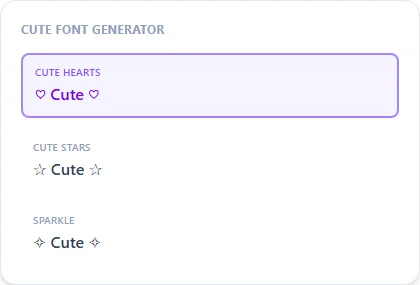
Cute fonts pair a soft-looking style (small caps, bubble letters, bold script) with light decoration around the text, like hearts, stars, and sparkles.
Type your text once to get both the styled text and the decorated wrapped versions, and mix and match to fit your bio's overall vibe.
Cute Font Generator style examples: Cute Hearts, Cute Stars, Sparkle, rendered on the word "Cute"
Letter style vs. symbol wrapper — they're two separate layers
'Cute' text is really two ingredients stacked together: a soft letter style underneath (Small Caps, Bubble, or Bold Script), and a symbol wrapper on top (Cute Hearts, Cute Stars, Cute Sparkle) that frames the whole phrase with decoration. You can use either layer alone or combine them. Generate the styled text first, then apply a wrapper to the result for the fullest cute effect.
Where cute fonts get used most
Instagram and TikTok bios are the biggest use case, followed by usernames and birthday or celebration captions. Because the hearts and stars are standard Unicode symbols rather than emoji, they render consistently across iPhone, Android, and desktop instead of showing a platform-specific emoji design.
Can I combine a font style with the heart/star decoration?
Yes, generate your text in a style like Bold Script or Small Caps first, then wrap the result with the Cute Hearts or Cute Stars option.
Do the heart and star symbols work on all devices?
They're standard Unicode symbols supported on virtually all modern phones and browsers.
What's the difference between Cute Hearts and Cute Sparkle?
Cute Hearts places a heart symbol around each word, Cute Sparkle uses a lighter star/sparkle accent. Try both against your text since the spacing reads differently depending on word length.
Is cute text good for a username, or just a bio?
Small Caps or plain Bubble work well as a username since they stay compact; save the heart/star wrappers for a bio or caption where the extra symbols have more room.